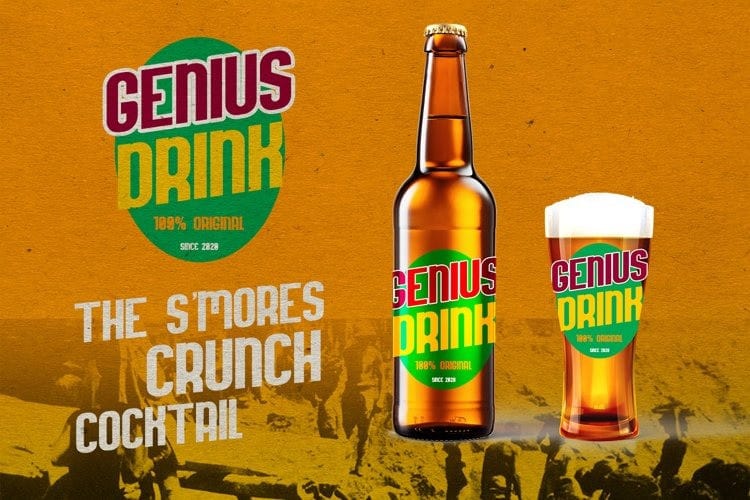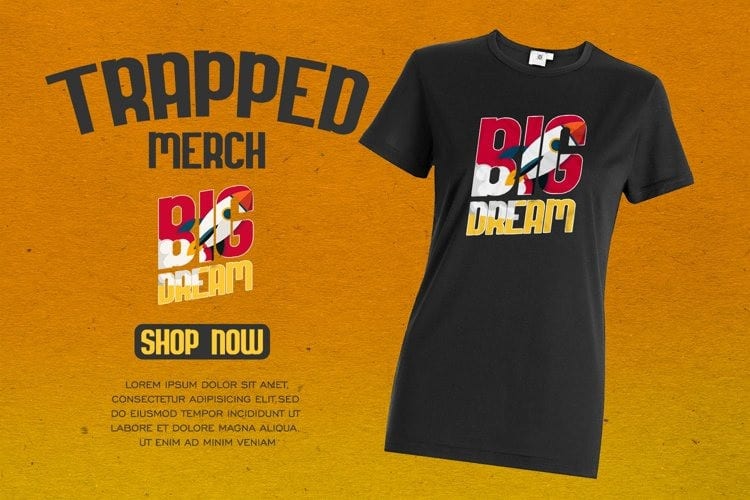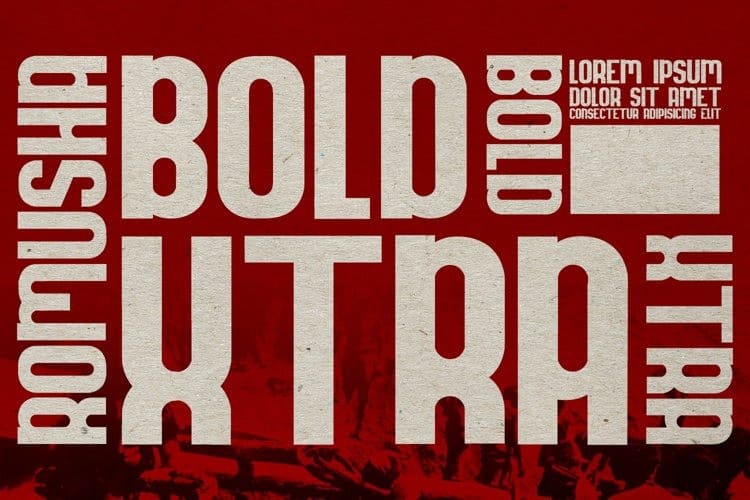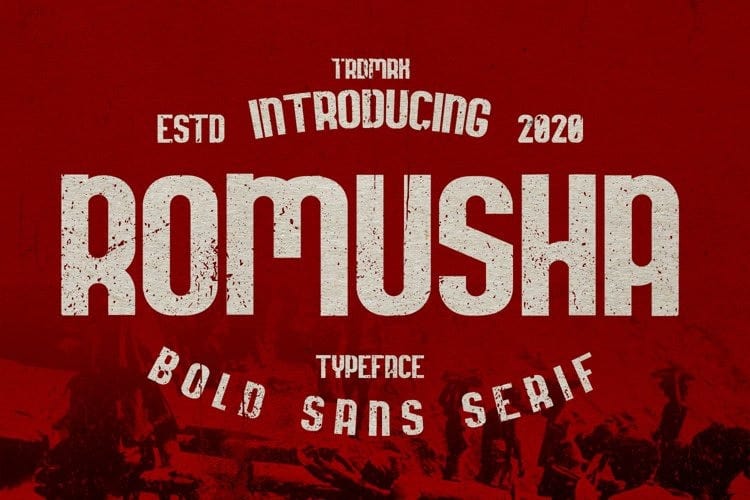
Romusha Display Font
Introducing Romusha Display Font – A classic sans serif display with many alternative styles to choose. Bold and simple. It’s designed and shared by JujunGag. This font specialty is good for product design like a drink product, Barbershop name, Megazine, T-shirt, climbing starter pack or you can use for your logo design, typography design, etc. This product is really inspirational and playful for your creative design.